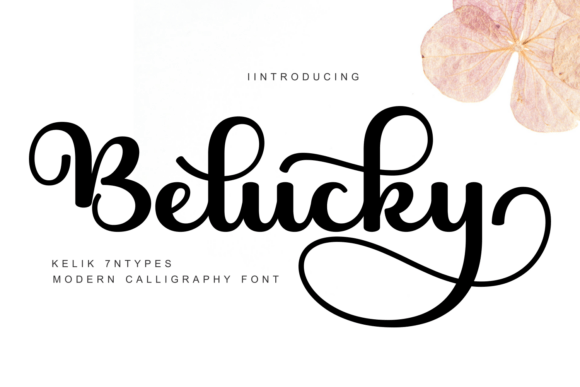
Introducing Belucky Font: The Ultimate Elegance for Your Designs
Are you looking for a font that exudes elegance and sophistication? Look no further than Belucky Font, a stylish and incredibly elegant script font that is perfect for a variety of design projects. From wedding invitations to business cards, Belucky Font is the ideal choice for adding a touch of handwritten charm to your designs.
What Makes Belucky Font So Special?
Belucky Font is a beautifully crafted script font that features elegant and flowing lines, making it perfect for designs that require a touch of sophistication. Its unique and stylish appearance sets it apart from other fonts, making it a great choice for designers who want to create something truly special.
One of the key features of Belucky Font is its versatility. It can be used for a wide range of design projects, including:
- Wedding invitations and thank you cards
- Quotes and greeting cards
- Logos and business cards
- Social media graphics and posts
- Packaging and branding materials
Whether you’re a designer, a small business owner, or an individual looking to create something special, Belucky Font is the perfect choice.
The Benefits of Using Belucky Font
There are many benefits to using Belucky Font in your designs. Here are just a few:
- Elegance and sophistication: Belucky Font adds a touch of elegance and sophistication to any design, making it perfect for high-end brands and luxury products.
- Versatility: Belucky Font can be used for a wide range of design projects, from wedding invitations to business cards.
- Unique and stylish: Belucky Font has a unique and stylish appearance that sets it apart from other fonts.
- Easily readable: Despite its elegant and cursive nature, Belucky Font is easily readable, making it perfect for body text and captions.
How to Use Belucky Font in Your Designs
Using Belucky Font in your designs is easy. Here are a few tips to get you started:
- Pair it with a sans-serif font: Pair Belucky Font with a sans-serif font, such as Arial or Helvetica, to create a beautiful contrast.
- Use it for headlines and titles: Belucky Font is perfect for headlines and titles, where its elegant and cursive nature can really shine.
- Add some flair with swashes: Belucky Font comes with a range of swashes and flourishes that can add some extra flair to your designs.
Why Designers Love Belucky Font
Belucky Font has quickly become a favorite among designers, and for good reason. Here are a few reasons why:
- High-quality design: Belucky Font is designed to the highest standards, with beautiful and elegant lines.
- Unique and exclusive: Belucky Font is a unique and exclusive font that will make your designs stand out from the crowd.
- Constantly updated: The team behind Belucky Font is constantly updating and improving the font, ensuring that it stays relevant and fresh.
In conclusion, Belucky Font is a stylish and incredibly elegant script font that is perfect for a variety of design projects. Its unique and stylish appearance, versatility, and ease of use make it a great choice for designers and non-designers alike. Whether you’re looking to create something special for a wedding, a business, or a personal project, Belucky Font is the perfect choice.